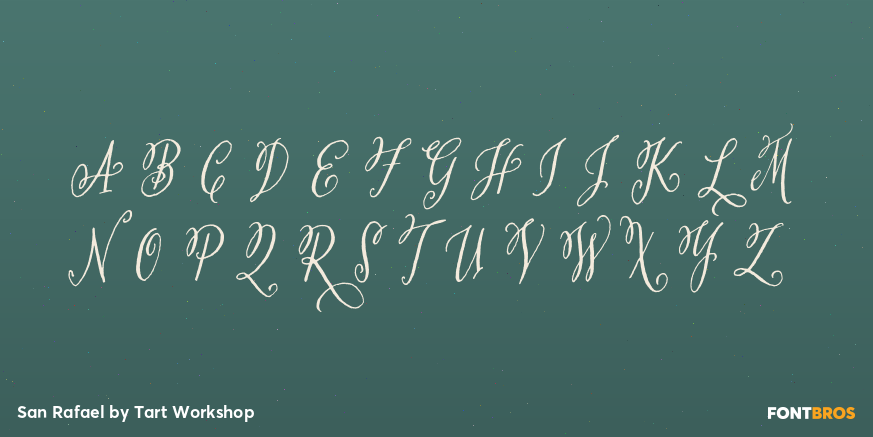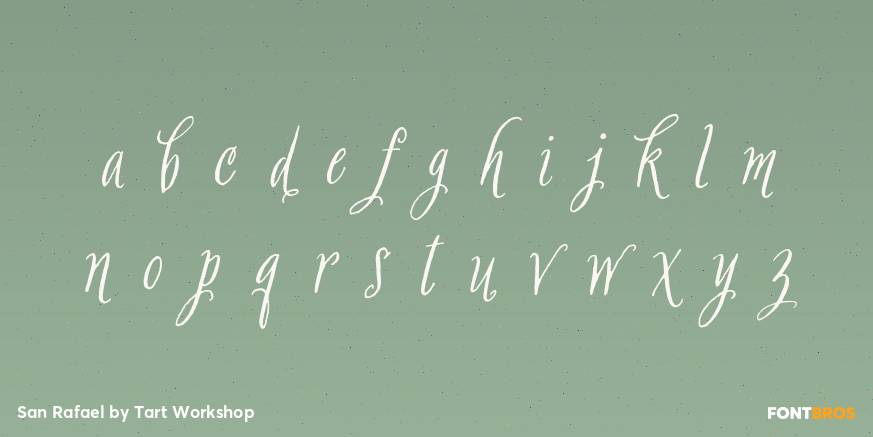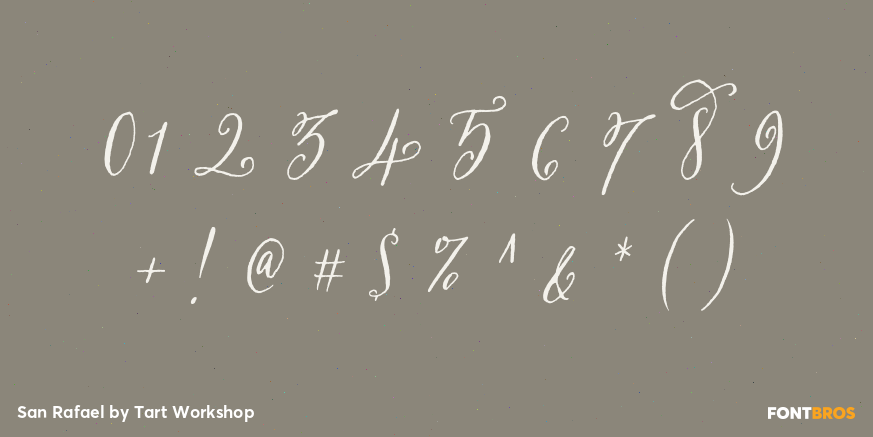
San Rafael
Clear skies. Crisp air. Ripe organic produce. Artisan bread at the farmer's market. Olives. Fragrant bouquets. Guernseys in the meadow. Glimpses of the Golden Gate and the city on the bay. Afternoons in the forest, foraging mushrooms. Day trips to wine country. Toasting to love, peace & hope with good friends. Dungeness crab fresh off the boat. Walks to the Mission with fair-trade coffee in hand. Sharing buttery homemade cupcakes. San Rafael lives the good life!
A flirty, sweet handlettered font that strikes just the right balance between sophisticated and casual or use San Rafael Mission when you want a more generous open breezy feel. San Rafael and San Rafael Mission have a lovely collection of alternative glyphs & ligatures accessible in any OpenType aware application. They are perfect for labels, packaging, logotypes, book titles, gifts & stationery goods.
San Rafael pairs beautifully with other Tart Workshop fonts, especially Carrotflower and Sugarplum.